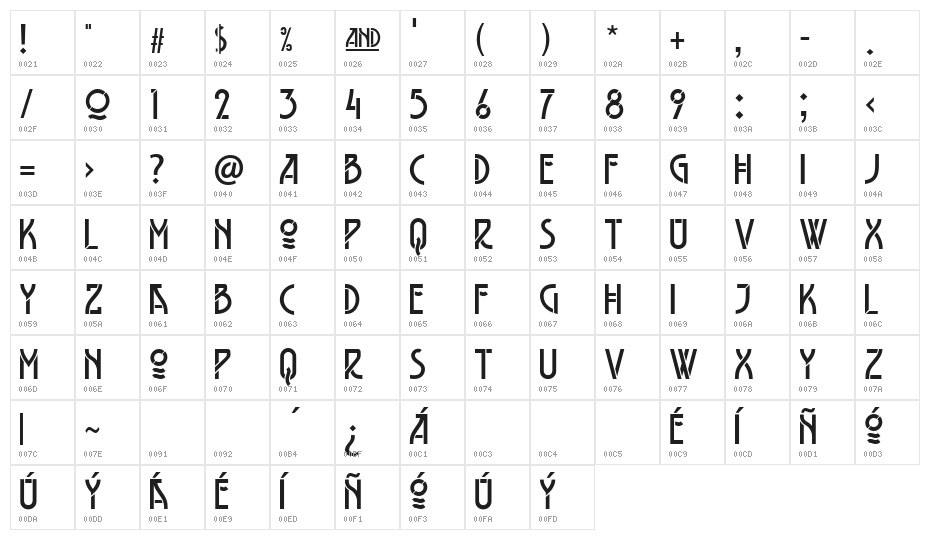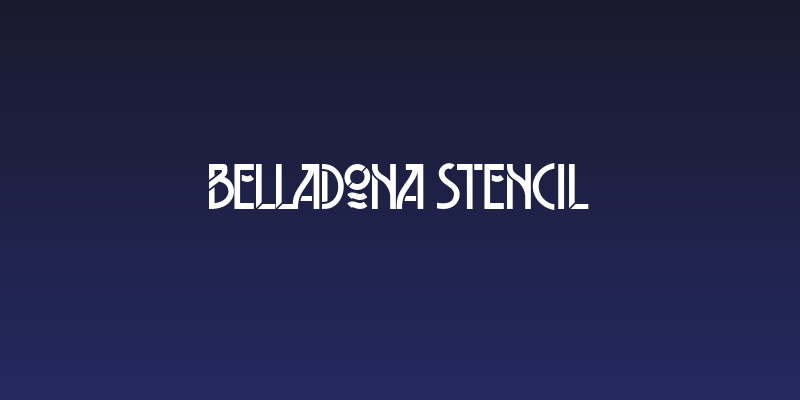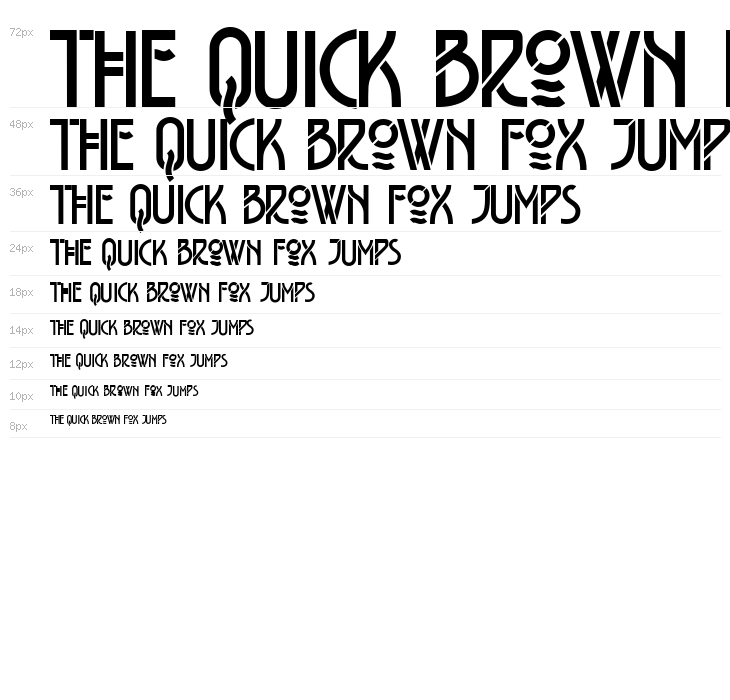
Belladona Stencil Font
Belladona Stencil Description
This font features a bold, stencil-like design with distinct cut-out sections that create a modern, industrial feel. The uppercase letters are characterized by sharp angles and geometric shapes, while the lowercase letters maintain a consistent style with slightly softer curves. The numbers and special characters follow the same aesthetic, ensuring a cohesive look across all elements. The font's unique style makes it stand out, with high contrast between the thick and thin strokes, adding to its visual impact. The spacing between characters is relatively tight, contributing to its bold appearance.
| Proposed Projects | Ideal for branding, posters, and signage where a modern, industrial look is desired. |